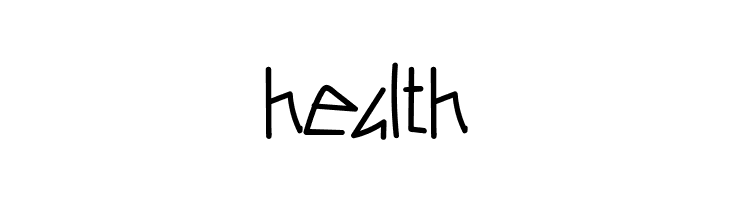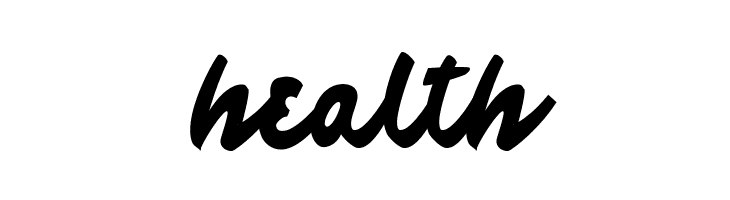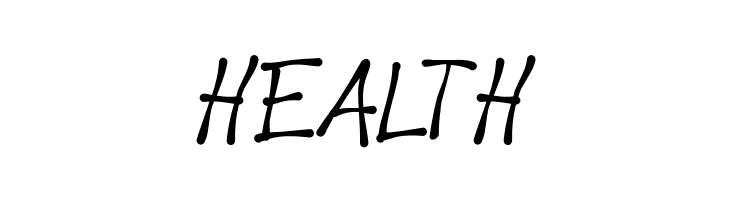
A playful, handwritten font with irregular strokes and a casual style.
A bold, playful font with thick, rounded characters and a whimsical style.
A bold, dynamic script font with interconnected letters and elegant flourishes.
A pixelated, retro-style font with a blocky, geometric appearance.
A bold, playful font with rounded, hand-drawn characters.
A modern, geometric font with clean lines and distinctive shapes.
A playful, cursive handwritten font with fluid, continuous strokes.
A playful, bold script font with a handwritten style.
A casual, handwritten font with a dynamic and informal style.
A playful, hand-drawn font with rounded, informal characters.